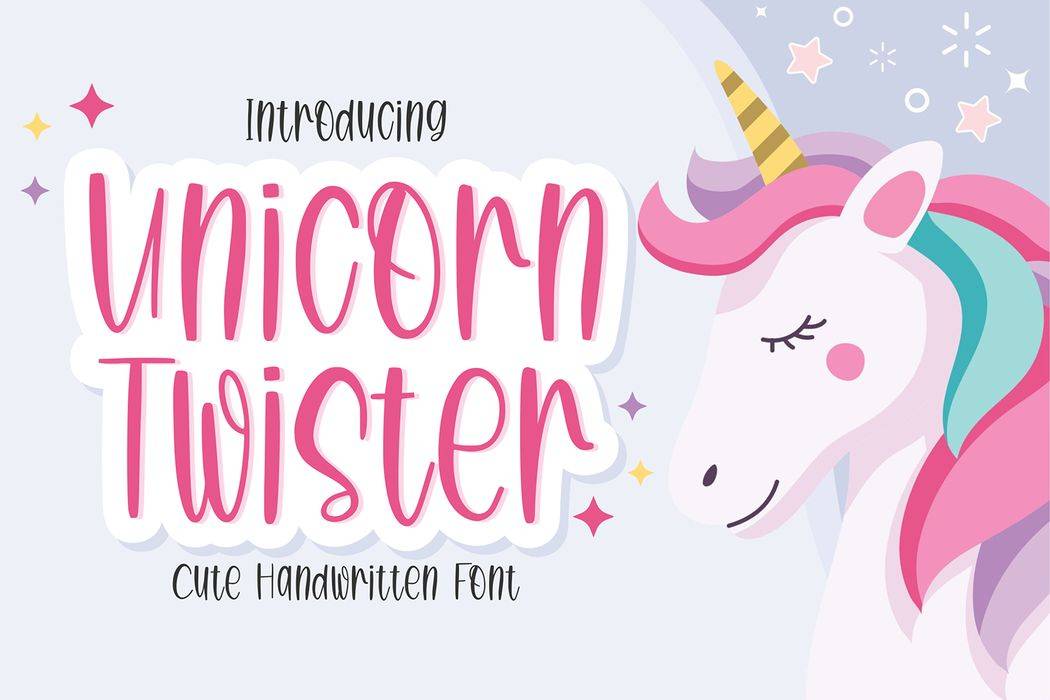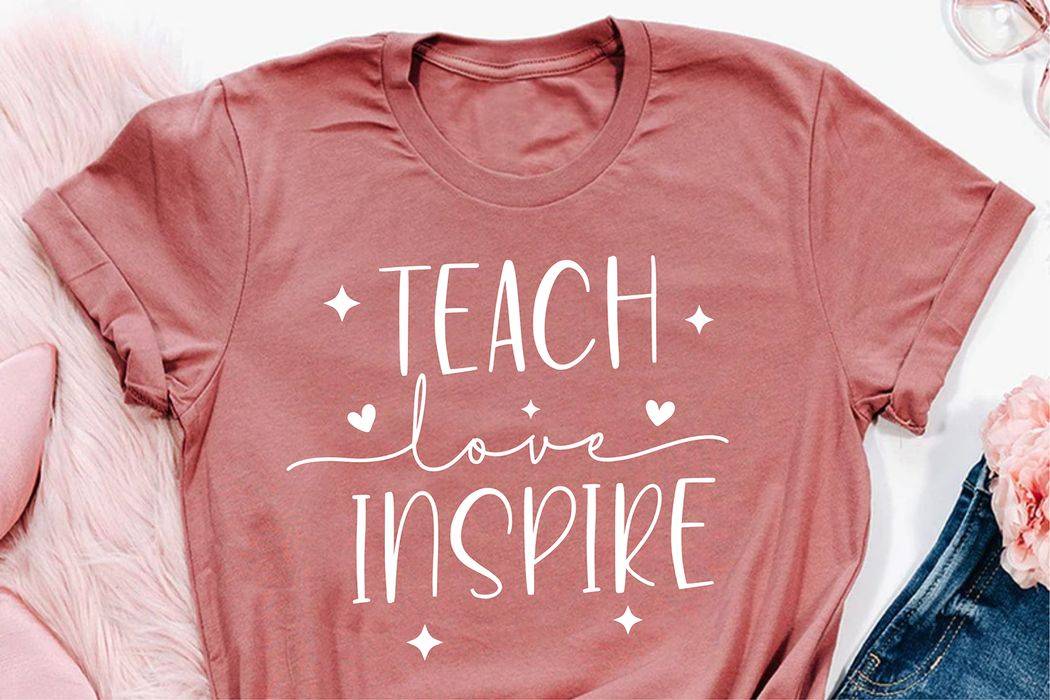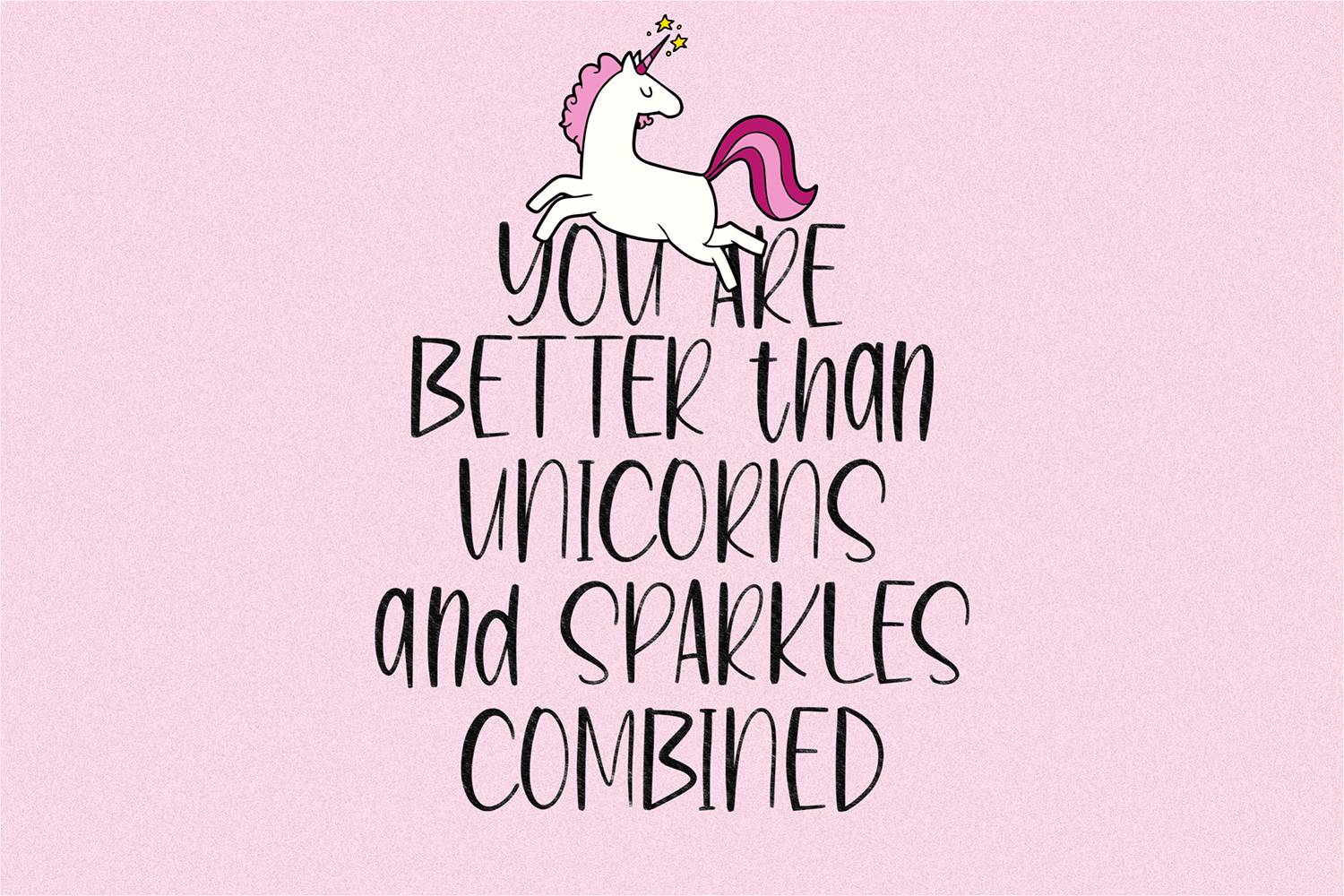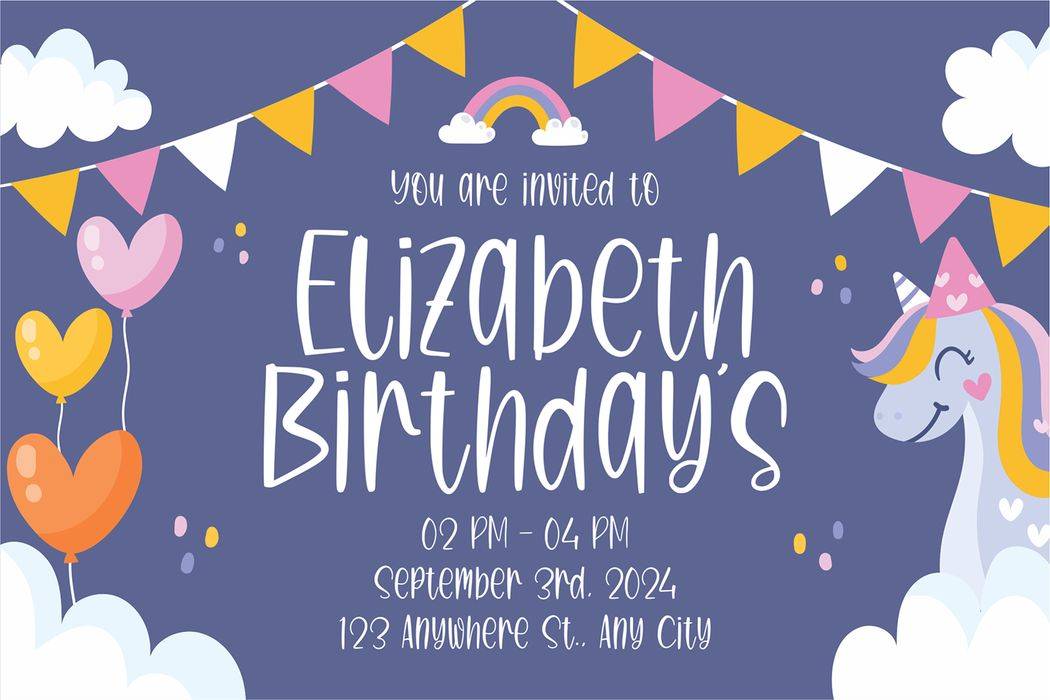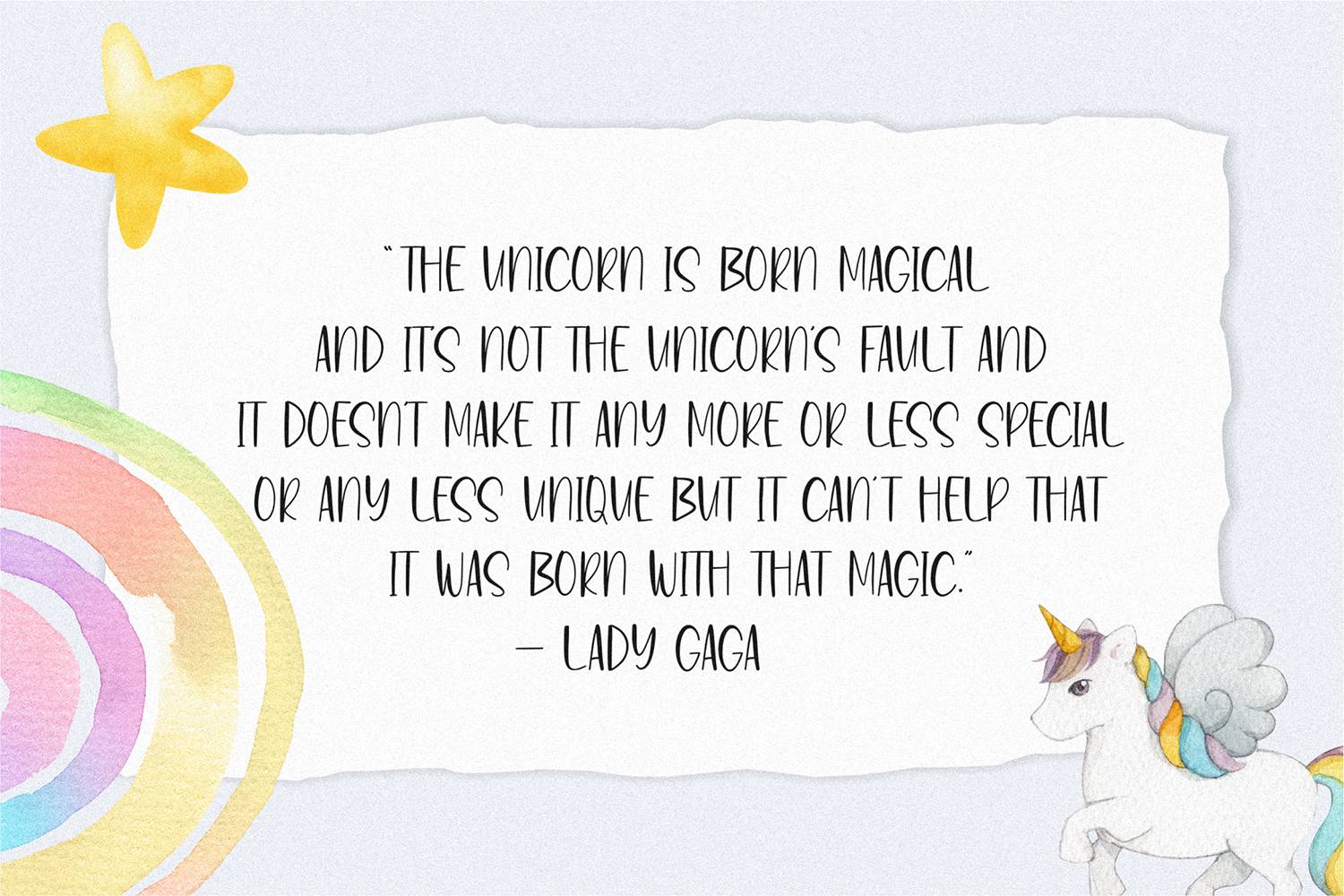
Unicorn Twister is a playful, narrow sans serif font with a handwritten feel, featuring tall, slightly irregular letterforms that create a whimsical and casual vibe. Its light weight and quirky character shapes make it ideal for fun, creative projects like invitations, children’s books, and informal branding that seeks a friendly, approachable personality. This font works best in headlines or short texts where a lively, unique touch is needed to stand out.
Unicorn Twister Font
About Unicorn Twister Font